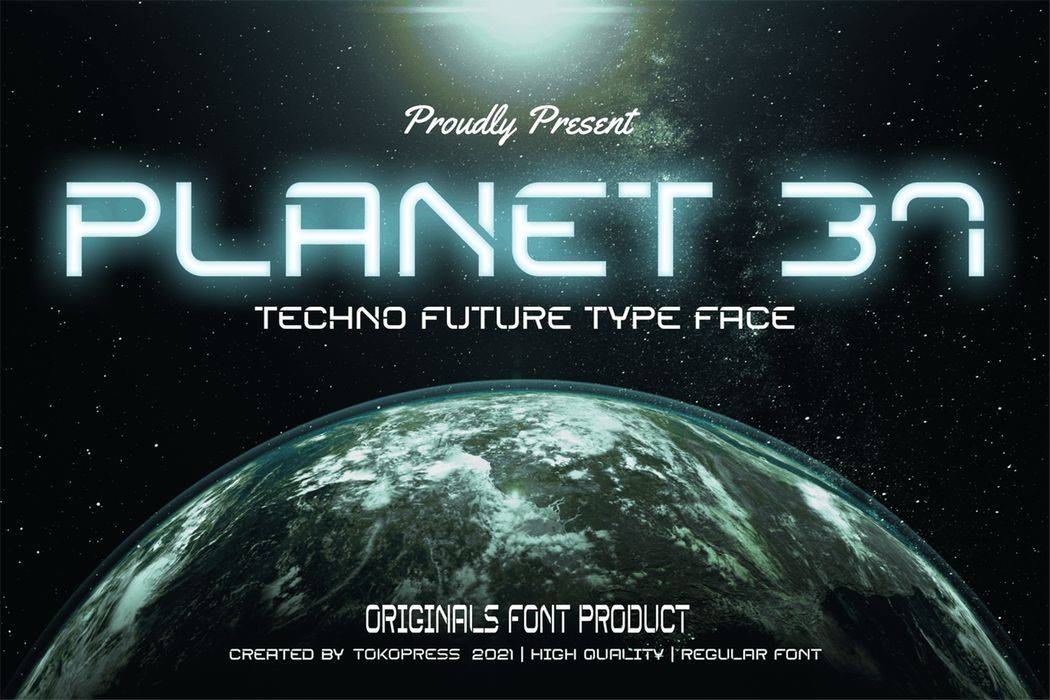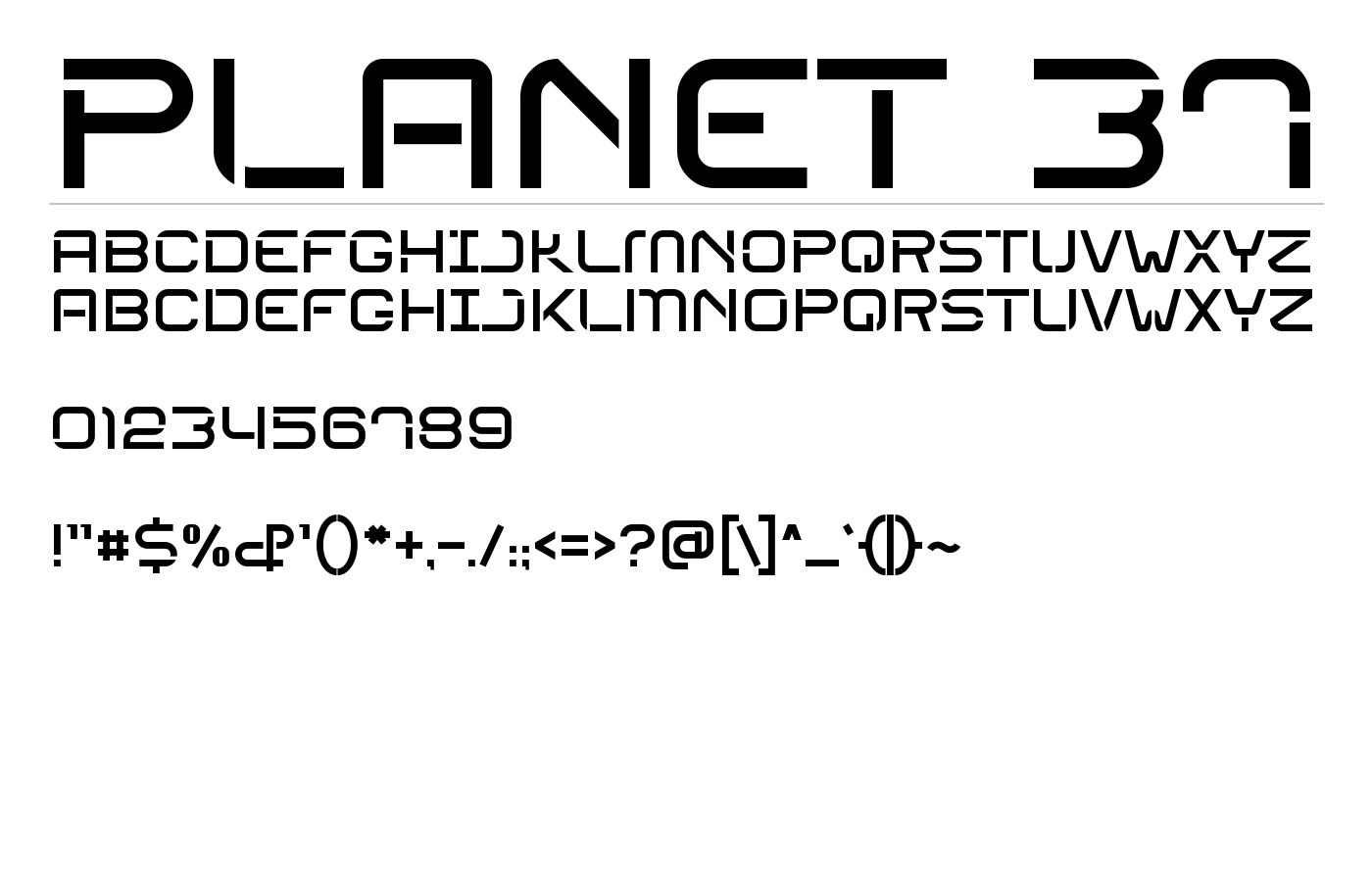
Planet 37 is a bold, futuristic sans serif font with a wide, geometric style and sharp, clean lines that give it a modern, tech-inspired feel. Its distinct letterforms, featuring unique cutouts and angled strokes, make it ideal for eye-catching headlines, logos, and branding in industries like technology, gaming, and science fiction. This font works best when you want to convey innovation, modernity, and a forward-looking vibe.
Planet 37 Font
About Planet 37 Font
| Font family | Planet 37 Font |
| Designer | Sahirul Sugih |